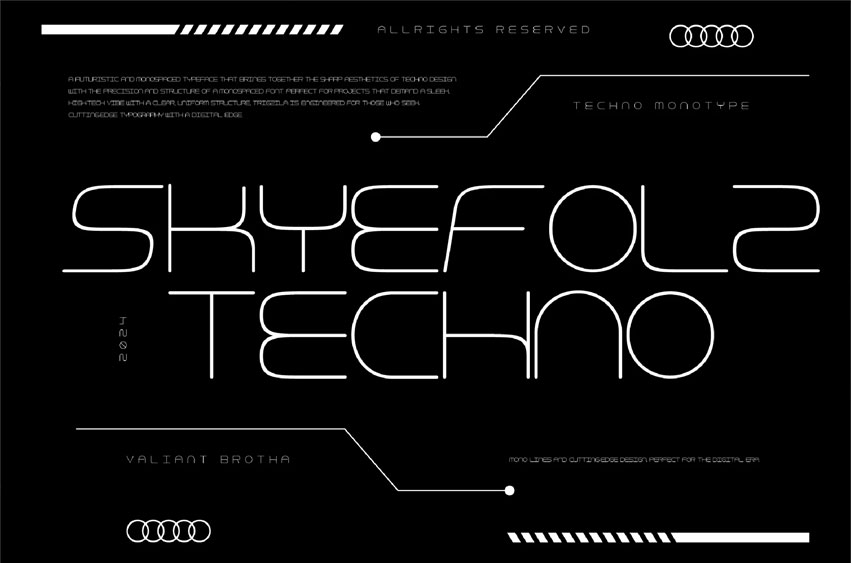
SkyeFolz Font
SkyeFolz Font Inspired by the power and precision of futuristic architecture and digital landscapes, SkyeFolz is built for projects that demand both strength and sophistication.
With its sharp angles, angular forms, and sleek geometry, this font is perfect for everything from high-tech branding to sci-fi narratives.